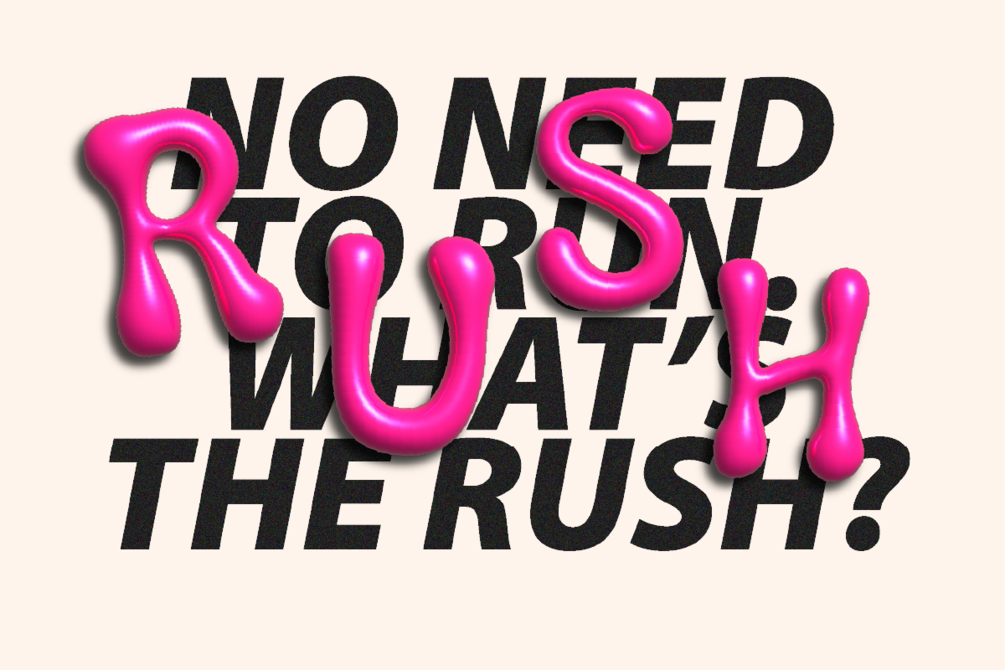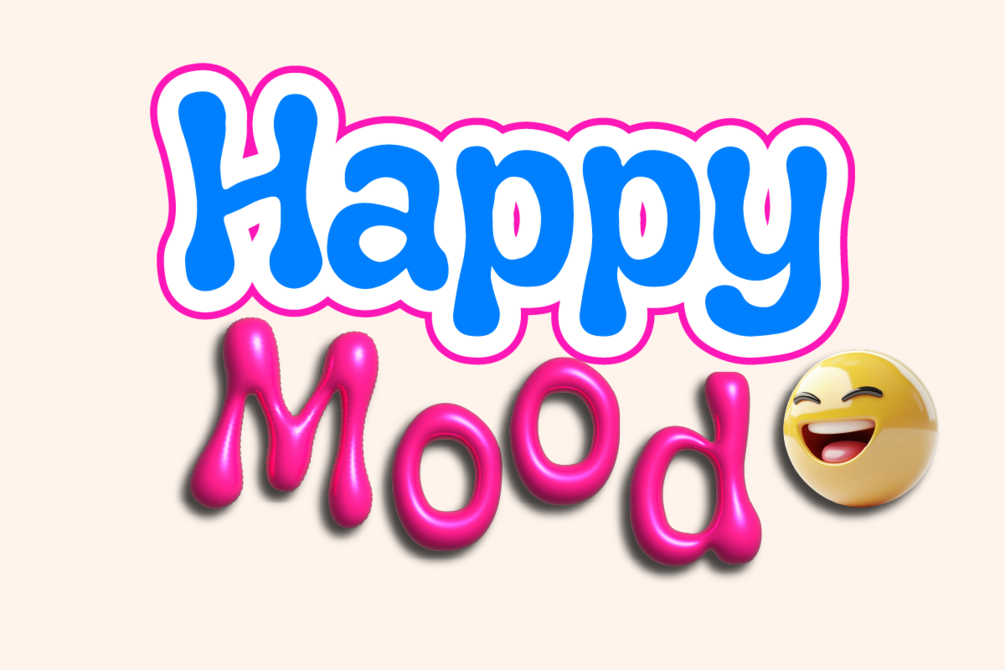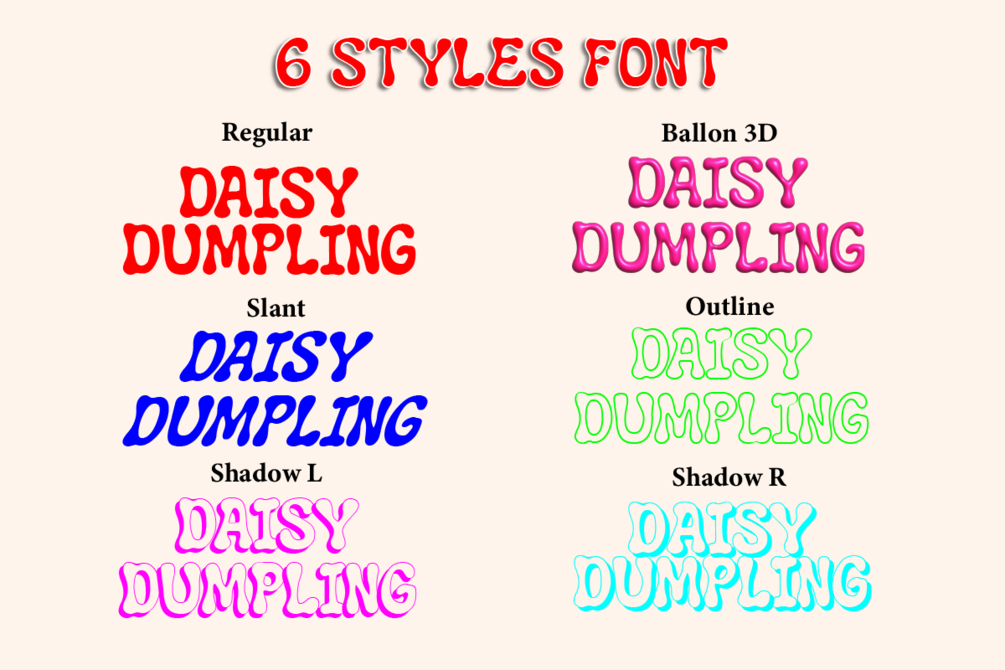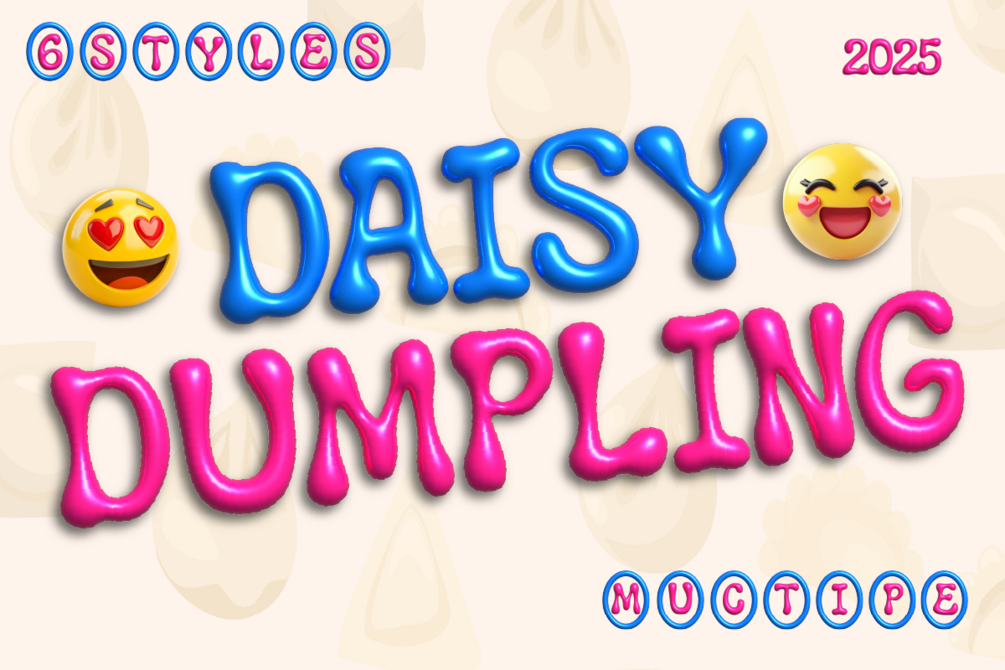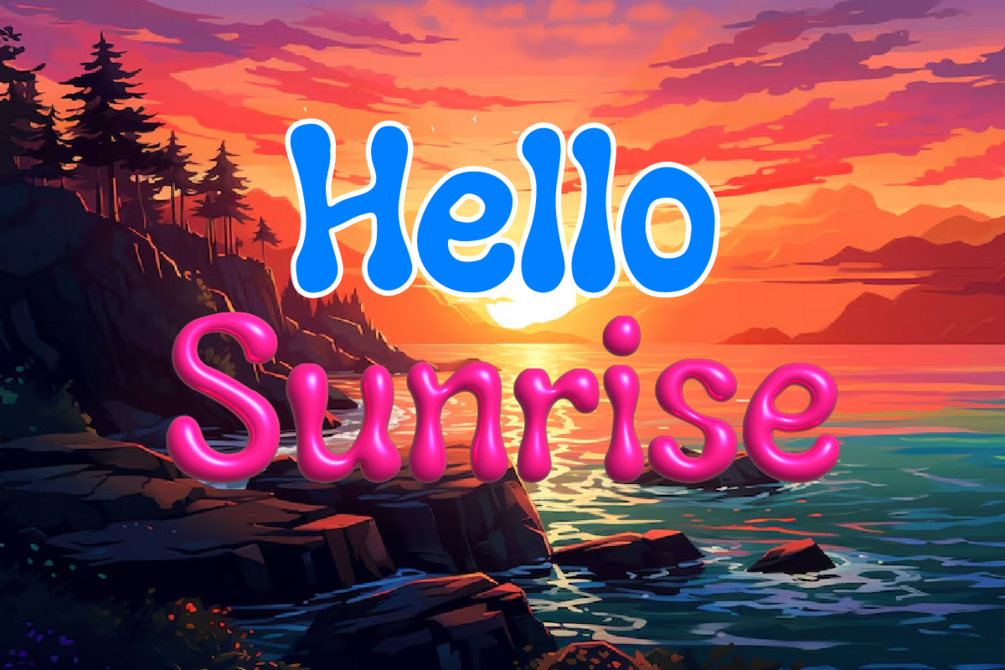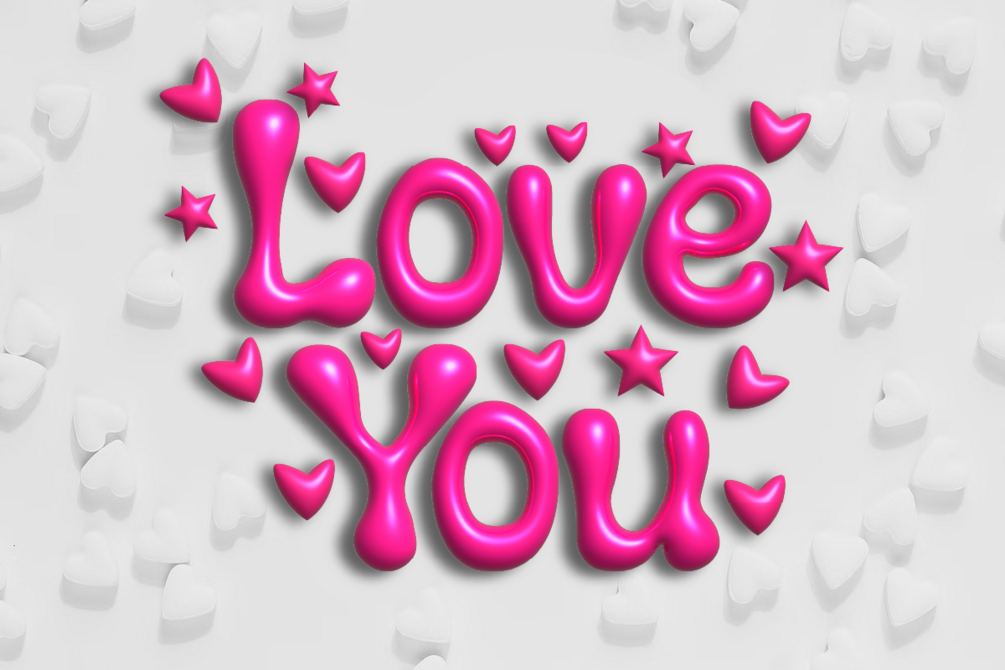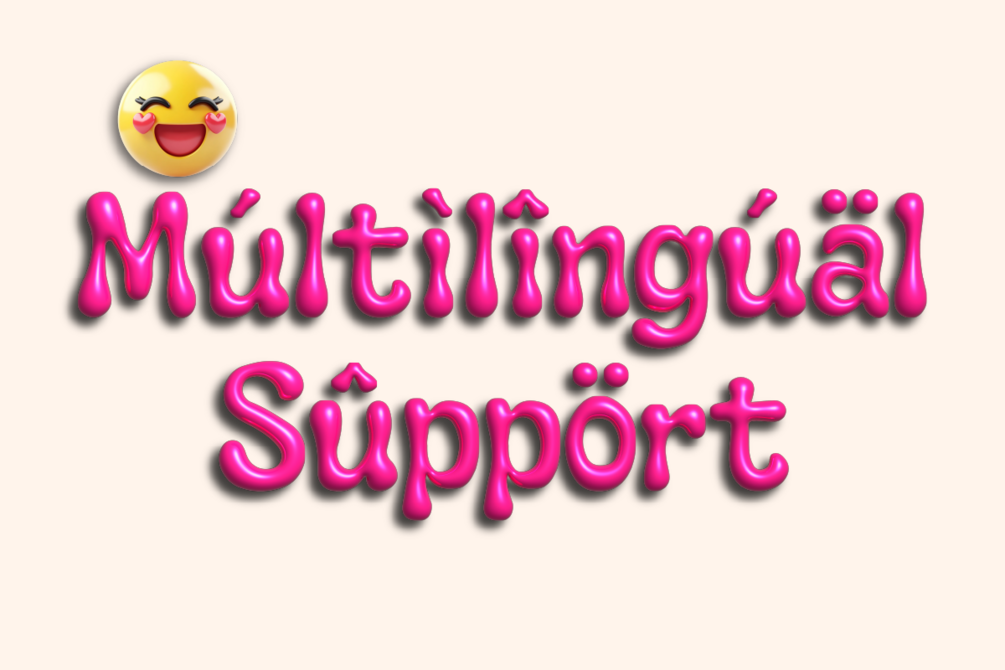
Daisy Dumpling
Say hello to Daisy Dumpling A brazen gold 3D-style balloon SVG font ready to turn heads :) SVG fonts are rasterised bitmap-based image fonts - compatible only with Photoshop CC 2017, Illustrator CC 2018, or Procreate 4.3 (or newer).
- Uppercase, Lowercase, Numerals & Punctuations
- Multilingual support